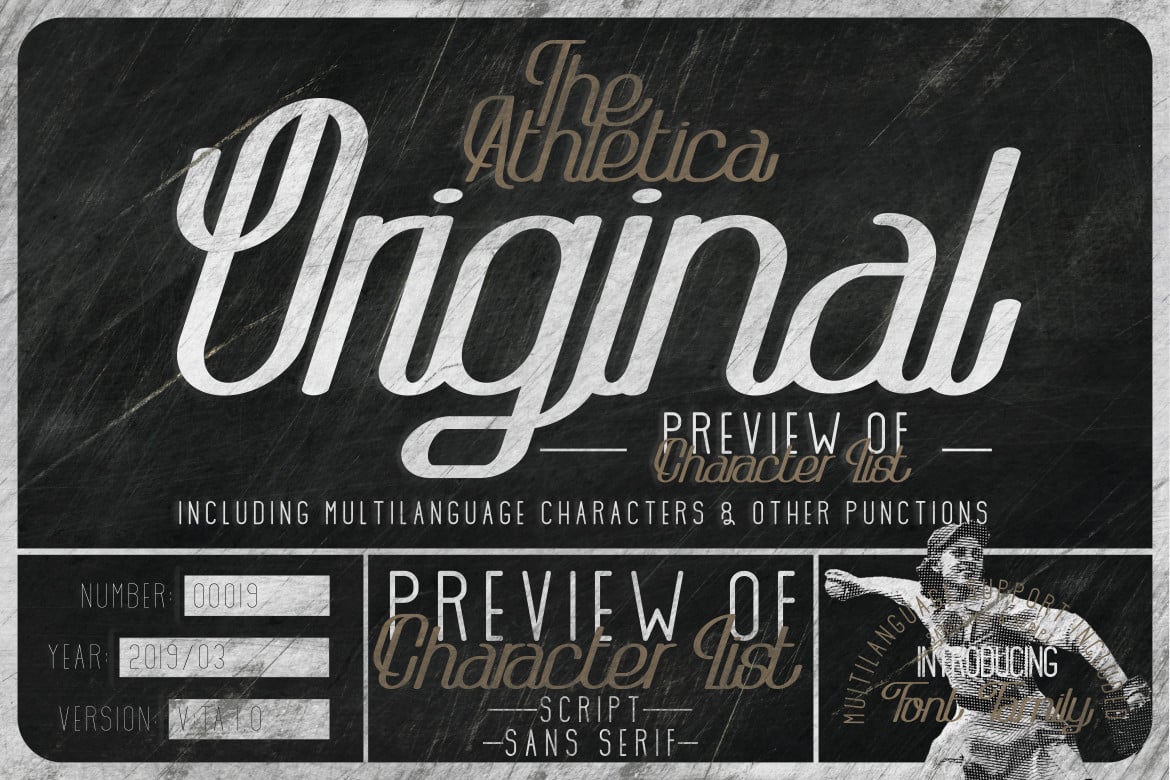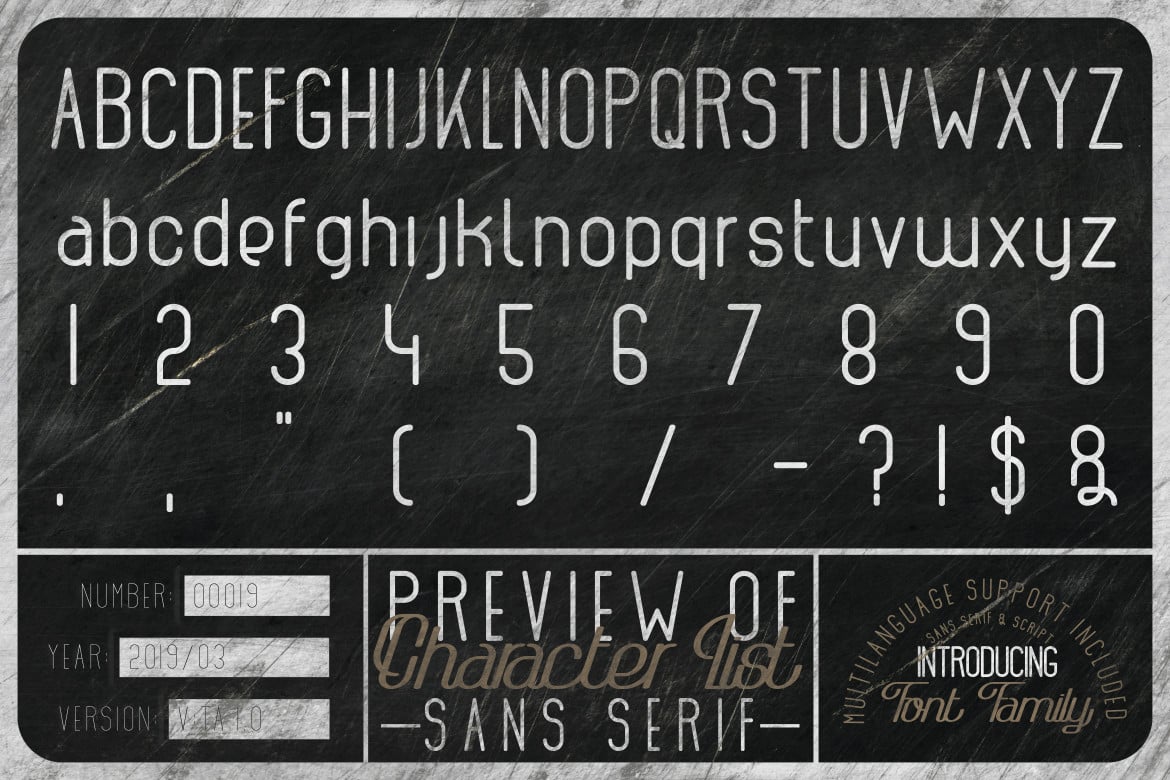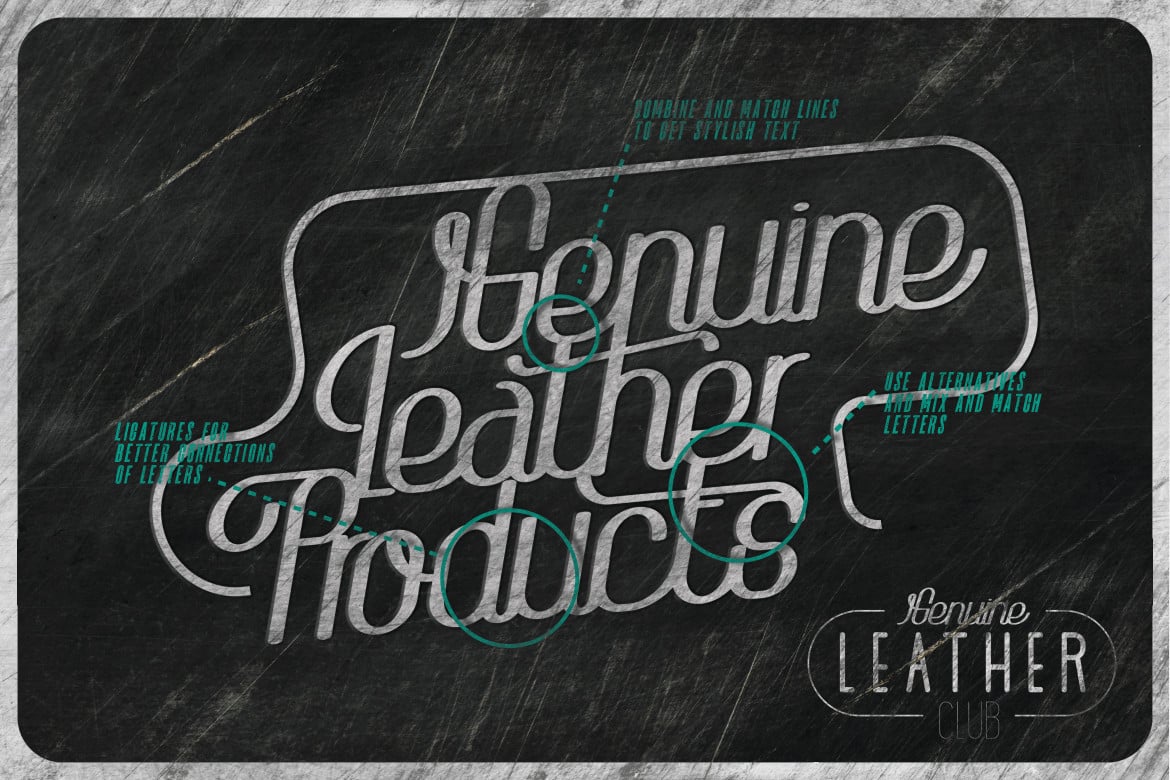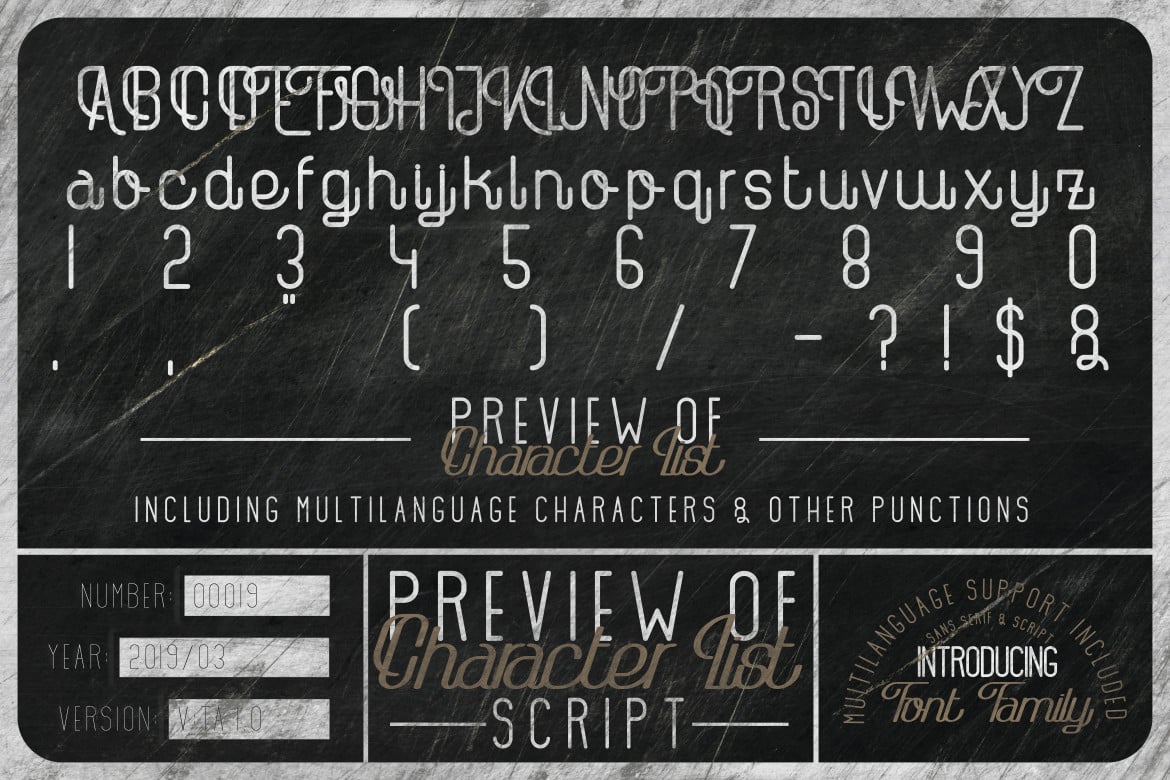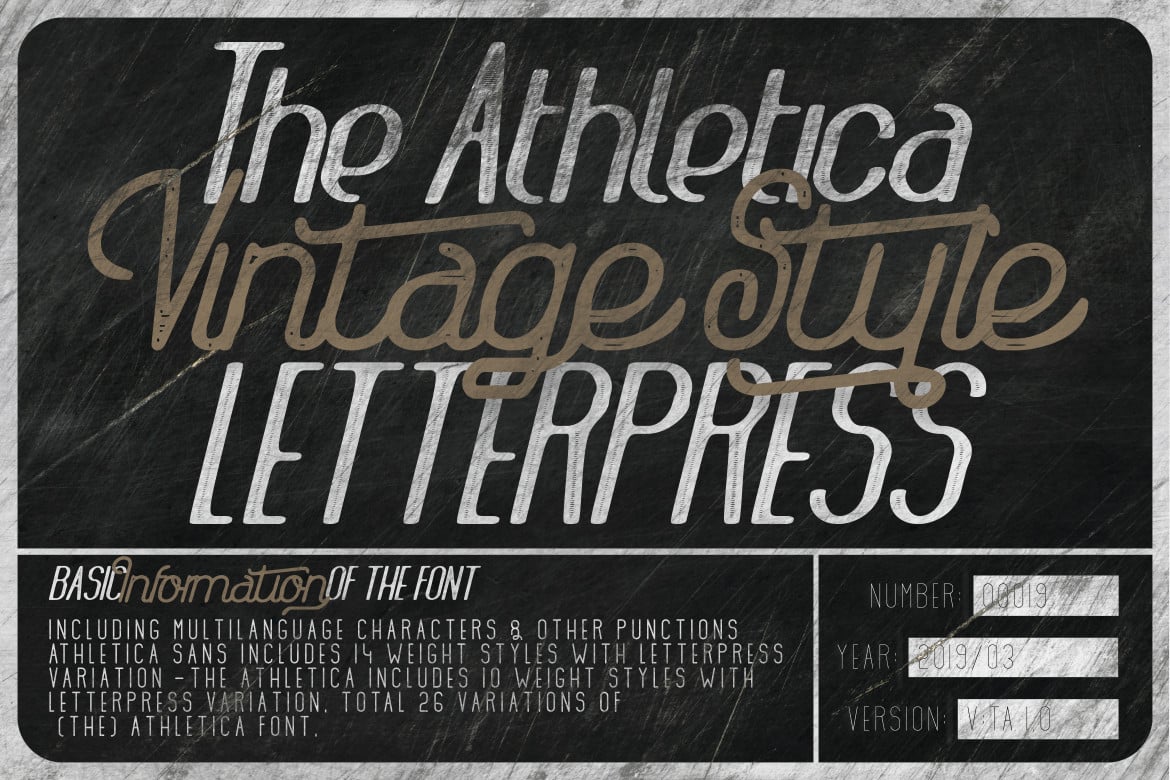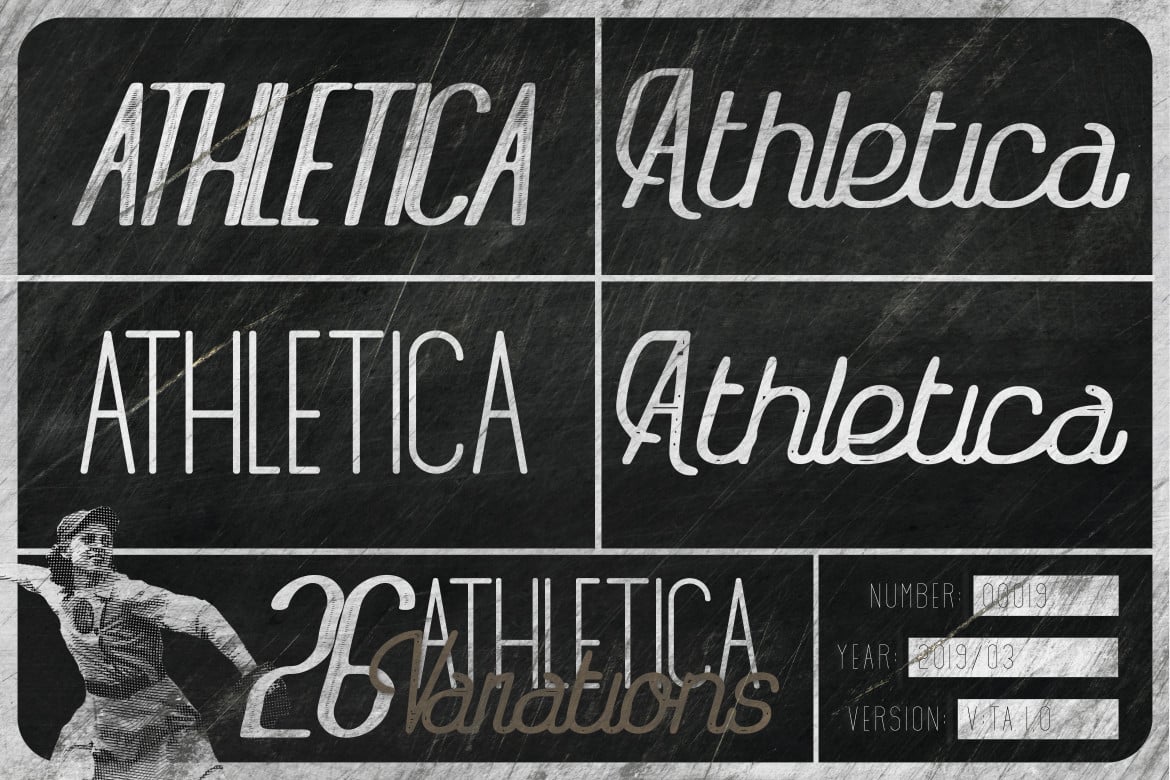
The Athletica Font
The Athletica Font is an handcrafted vintage monoline script and sans-serif. Inspired by retro posters and magazines, postcards and ads in 40’s and 50’s.
Font comes with 26 styles. From Regular to Black, Letterpress variation and many others.
The font stays in memory once you see it and it is ideal for display text, print and and also for user interfaces, mobile devices, web design and posters, with a set of optimal characters for your design in any layout.
It looks especially great in large scale, although it still carries it at smaller point sizes.
The Athletica features:
- Stylistic alternatives & swashes
- International characters (Multilingual)
- Punctuation & symbols
- OpenType Features
- Athletica Sans features:
Uppercase & lowercase
- International characters (Multilingual)
- Punctuation & symbols
**Multilanguage Support: **
English, Albanian, Danish, Dutch, Estonian, Croatian, Bosnian, Slovenian, Finnish, French, German, Icelandic, Italian, Norwegian, Portugese, Spanish, Swedish with a lot of other languages; see Full Character List.